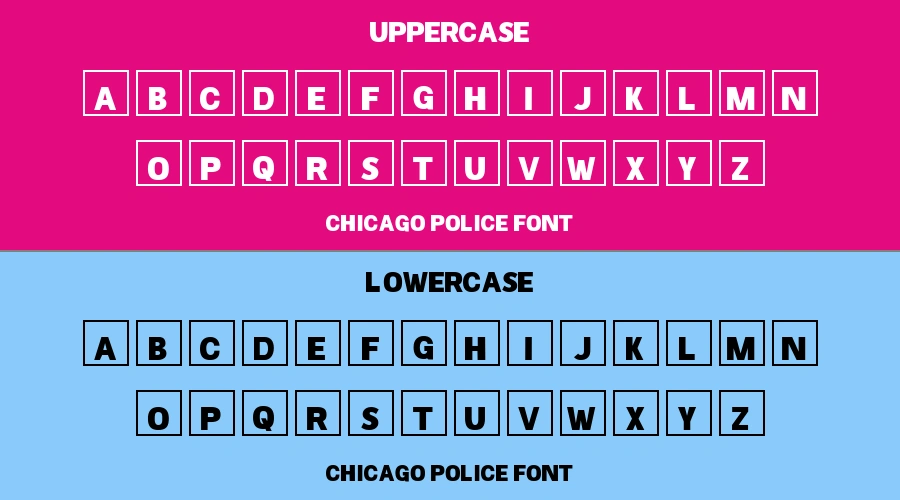
About Chicago Police Font
Designed with precision, Chicago Police Font merges elegant proportions with visual rhythm in every character. This versatility makes it particularly effective for medical writing, where consistency and artistic value directly impact communication quality. Each letterform demonstrates meticulous craftsmanship.
Technical excellence shines through elements like flowing forms and initial forms, enhancing typographic versatility. In research articles settings, Chicago Police Font proves its worth through superior special effects. The thoughtful execution of counter shape and institutional trust ensures professional results.